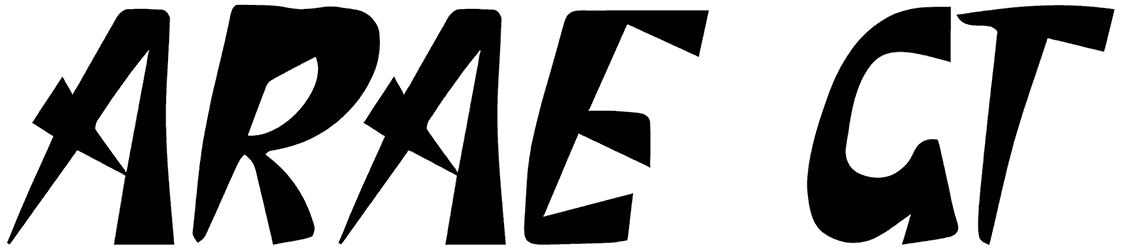
Christmas Day Font
When you look at the Christmas Day font, its letters’ shape does not let you turn your eyes away. This cartoon font feels energetic due to its curvy form and smooth edges. Thus, you can use it for various cases such as posters, animations, and postcards. Moreover, the Christmas Day font looks fun with bold characters that attract attention at first glance.
Christmas Day is a cool and fun display font. It can easily be matched to an incredibly large set of projects, so add it to your creative ideas and notice how it makes them stand out!
Designed by: Erik Studio